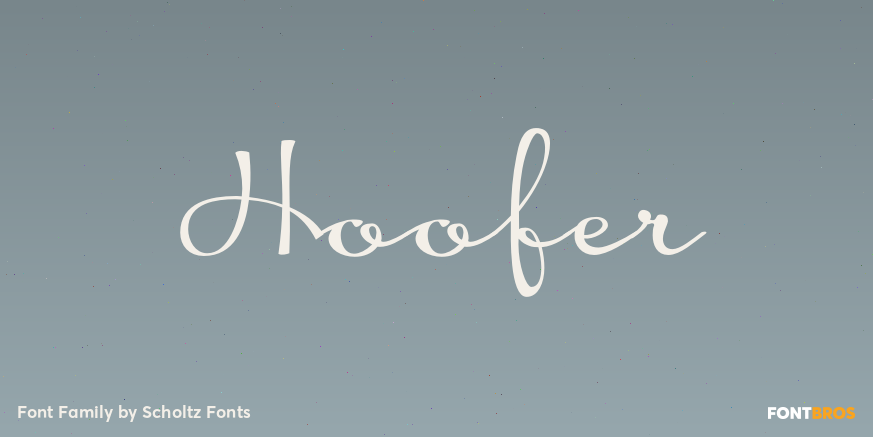
Hoofer
About Hoofer
Light and flexible, slightly retro, casual and readable, Hoofer combines 28 brush script, mono line script and sans-serif styles with ornaments into one Mega-Family. The different styles of the Hoofer Mega-family have been chosen to work together and…